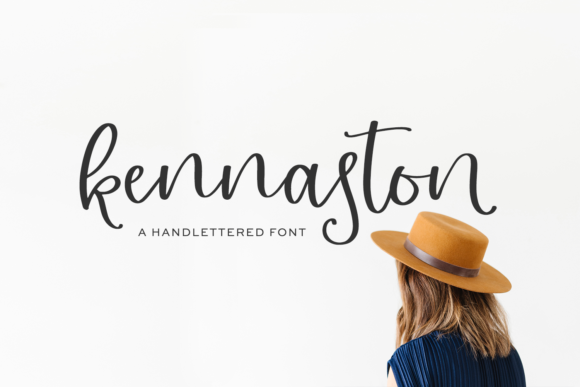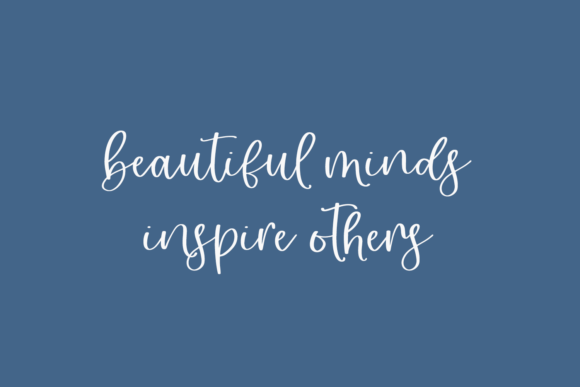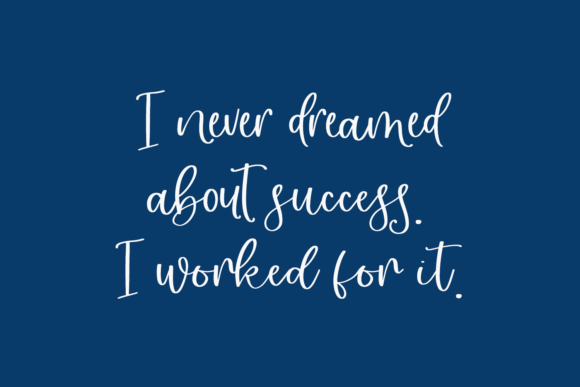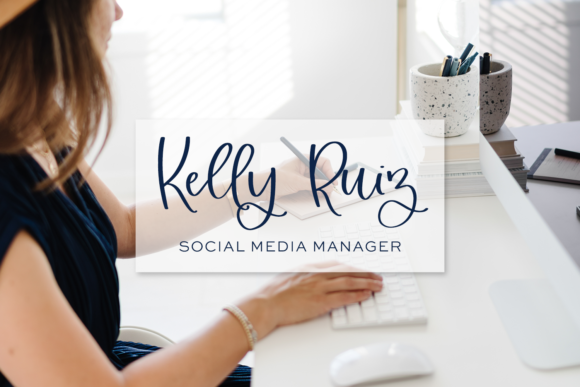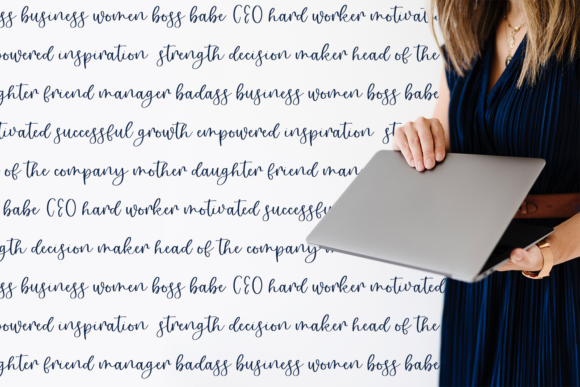
About Kennaston Font
Kennaston is a classic script font that exudes elegance and a friendly feel. Its timeless design makes it perfect for various crafting projects that require a personalized and handcrafted touch.
The smooth and flowing letterforms of Kennaston give it a graceful and sophisticated appearance. Whether you’re creating wedding invitations, greeting cards, logos, branding materials, or any other crafting project, this font will add a touch of charm and uniqueness.
One of the notable features of Kennaston is its PUA encoding, which allows easy access to all the glyphs and swashes. This means you can explore a wide range of stylistic alternates, ligatures, and decorative elements to enhance your designs. It offers flexibility and creativity in customizing the look and feel of your text.
The friendly and approachable nature of Kennaston makes it suitable for various themes and styles. It can be used for both formal and informal designs, adding a personal and warm touch to your projects. Its versatility allows it to adapt to different contexts, making it ideal for DIY crafts, scrapbooking, journaling, and more.
When using Kennaston, consider its legibility and readability, especially when applying it to smaller sizes or detailed designs. Experiment with different letter spacing and sizing to ensure clarity and maintain the desired aesthetic.
In summary, Kennaston is a classic script font with a friendly feel, perfect for adding a personalized touch to any crafting project. Its PUA encoding provides access to a range of glyphs and swashes, allowing for customization and creativity. Embrace the elegance and warmth of Kennaston and let it enhance your designs with its timeless appeal.